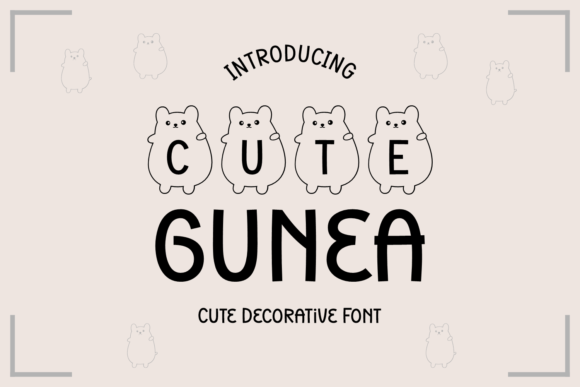
Embark on a typographic expedition with the captivating Cute Gunea Font, a decorative masterpiece that adds a dash of whimsy to your creative endeavors. This enchanting font family breathes life into your designs with its charming letters playfully illustrated on the backs of adorable guinea pigs.
Immerse yourself in the realm of creativity as Cute Gunea Font transports you to a world of unlimited possibilities. Its playful characters dance across your screen, captivating hearts with their endearing presence. Unleash your imagination and craft designs that radiate warmth, charm, and a touch of lightheartedness.
With Cute Gunea Font, you hold the key to unlocking a treasure trove of design opportunities. Whether you're a seasoned professional or just starting your artistic journey, this font family empowers you to express yourself authentically. Dive into a world of endless creativity, untethered by boundaries.
Picture this: a whimsical greeting card adorned with heartfelt messages, penned in the enchanting strokes of Cute Gunea Font. Its amiable curves and playful illustrations lend an air of warmth and affection, making your words resonate even deeper.
Or perhaps you're crafting a captivating social media post, eager to capture the attention of your audience. Let Cute Gunea Font be your secret weapon, transforming ordinary text into captivating visual treats. Its playful charm is guaranteed to entice viewers, inviting them to delve into your content with unwavering curiosity.
Step into the world of web design, where Cute Gunea Font weaves its magic, crafting websites that exude charm and sophistication. Its versatility knows no bounds, adapting effortlessly to various design aesthetics. Create online spaces that resonate with your audience, sparking connections and leaving lasting impressions.
With Cute Gunea Font, your designs transcend the ordinary, captivating hearts and imaginations with their captivating allure. Embrace the boundless creativity within you and embark on a typographic adventure like never before.